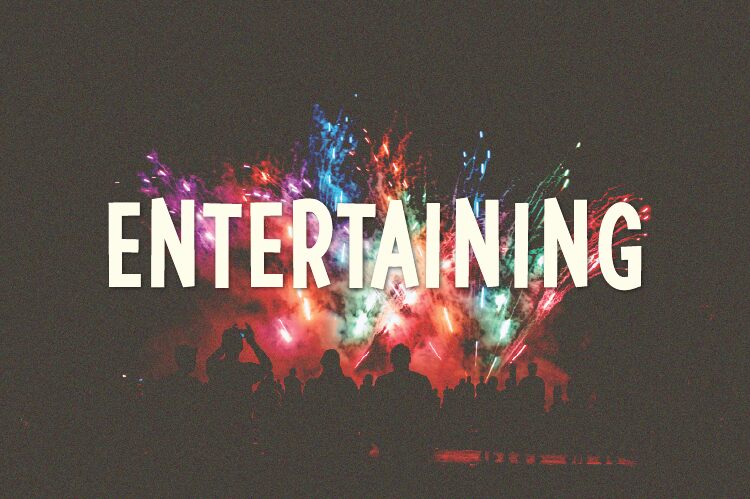
Entertaining
Entertaining font by HannaBie Creative Studio is a free comic display typeface with a tall, squeezed-in silhouette that looks like it’s been stretched for laughs. The letters are narrow and slightly irregular, with a hand-drawn wobble that keeps the texture lively instead of stiff. Heavy strokes and tight spacing pack a lot of voice into a small area, so your words hit the page like bold poster headlines while still feeling playful and human.
Using Entertaining, you can bring loud, energetic character to posters, kids’ book covers, party flyers, comic titles, YouTube thumbnails, and quirky brand graphics. This free font shines when you set it big and bold, letting the vertical rhythm and chunky forms do the shouting. Pair it with a clean, rounded sans serif for body text to balance its wild, compressed personality without losing the fun.